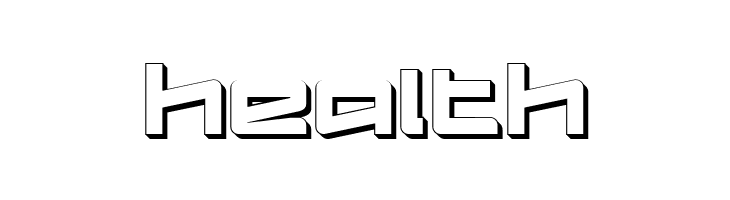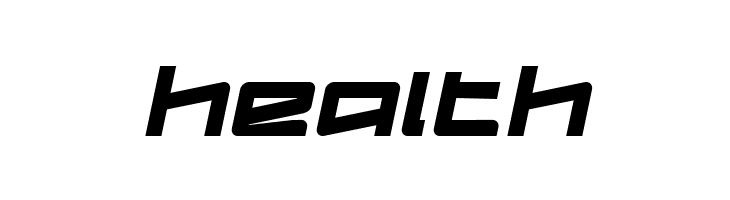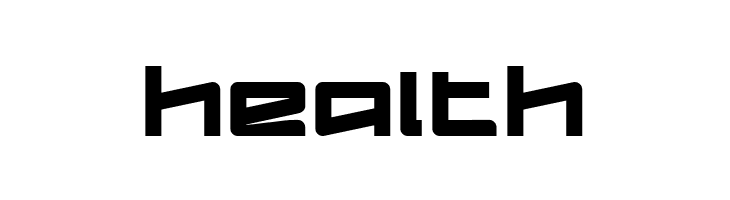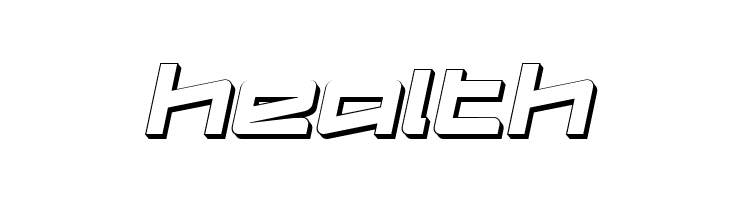
A bold, geometric font with a futuristic and modern style.
A bold, italic font with a modern, angular design and a futuristic feel.
A bold, extruded font with a three-dimensional, geometric style.
A bold, extruded, and italic font with a modern, dynamic style.
A bold, modern font with a unique diagonal striped pattern.
A modern, italicized font with a distinctive diagonal stripe pattern.
A bold, geometric font with a futuristic and edgy design.
A bold, italicized font with a modern, angular design.